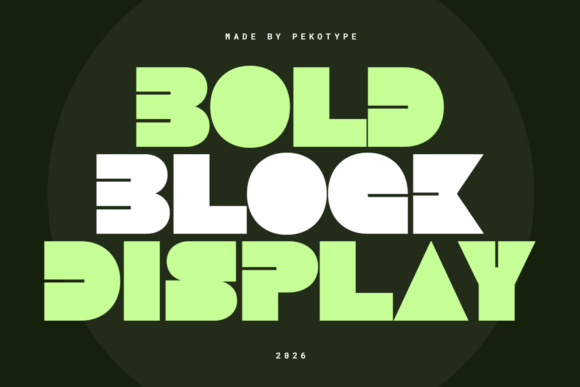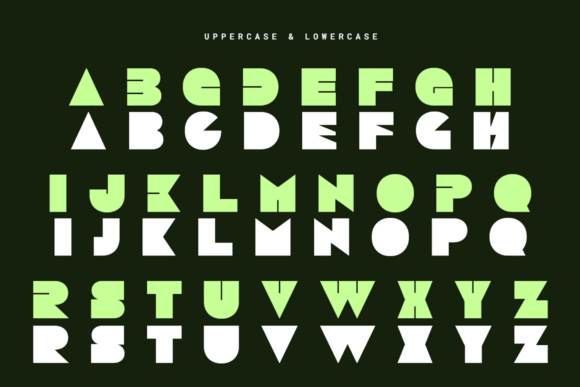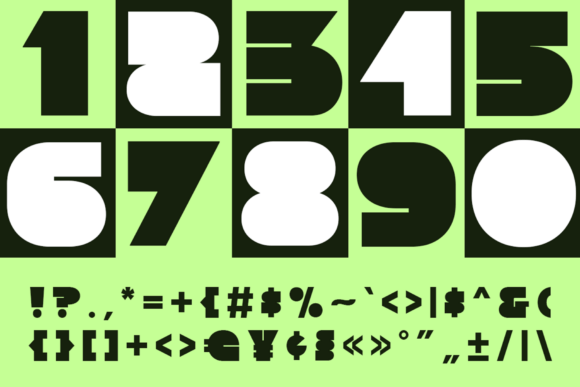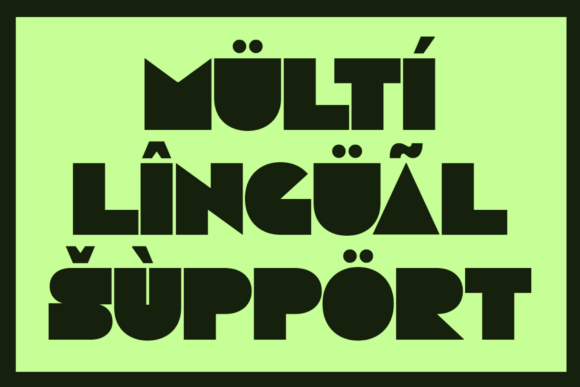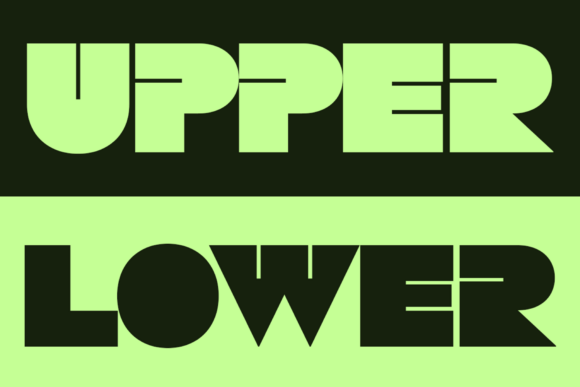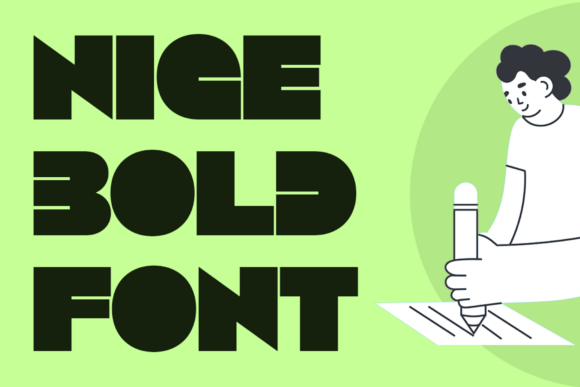
Introduction to Nobu Font
Imagine you’re scrolling through social media, and a bold, eye-catching font grabs your attention. That’s the kind of instant connection you can create with the right design resource. For designers, finding the perfect font can be a game-changer – and that’s where the Nobu Font comes in.
This dynamic font is a design enthusiast’s dream come true, offering a fun and modern vibe that’s perfect for creative projects. With its bold block display style and unique cuts, the Nobu Font is sure to make a statement. Whether you’re working on a logo, poster, or branding project, this high-quality font is sure to elevate your design and leave a lasting impression.
So, what makes the Nobu Font so valuable for designers? For starters, it’s incredibly versatile, working well with a variety of design styles and applications. Plus, with its transparent background and multilingual support, you can use it with confidence across different projects and platforms.
Nobu Font
- High-quality font suitable for various creative projects, including graphic design, digital art, and more.
- Features a transparent background, allowing for seamless integration into various design elements and backgrounds.
- Designed to be highly versatile, making it suitable for use in a variety of contexts, from logos and branding to typography and text-based designs.
- Comes in a range of sizes, from small to large, making it easy to scale and adjust to meet the needs of your specific project.
Honest Review: Nobu Font
I recently stumbled upon the Nobu Font, a beautiful design resource that I couldn’t wait to dive into for my next creative project. The first thing I noticed was the high quality of the font, with crisp lines and a seamless, transparent background that makes it perfect for any design task.
- ✨ The font’s elegant, modern design makes it suitable for a wide range of creative projects.
- ✨ The transparent background is a game-changer, allowing for effortless compositing with other design elements.
- ⚠️ The font may not be as versatile as some other design resources, with limited character sets and styles.
Overall, I’m impressed with the Nobu Font, and I think it’s a great addition to any designer’s toolkit. While it may not be perfect, its high quality and transparent background make it a valuable resource for any creative project.
Nobu Font
The Nobu Font is ideal for creative projects that require a high-quality, transparent background. It’s perfect for use in logos, branding materials, and other design elements where a clean and minimalist look is desired.
Tips for Getting the Most Out of Nobu Font
For the best results, use the Nobu Font in conjunction with a transparent background. This will allow the font to stand out and create a clean, modern look. Additionally, experiment with different font sizes and styles to find the perfect combination for your design project.